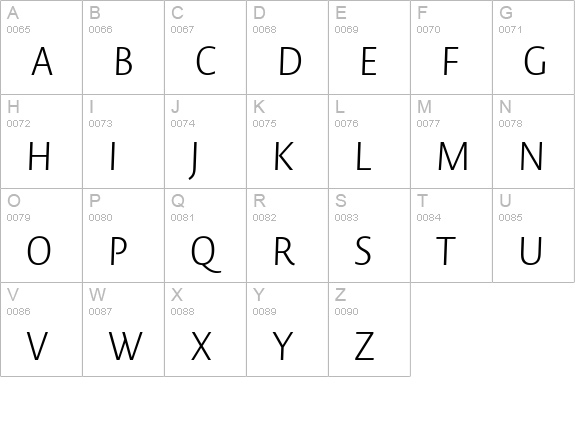
Novel Sans Pro ExtraLight It Font Details
Novel Sans Pro ExtraLight It is an airy, ultra-refined variant in the Novel typeface family \xE2\x80\x94 well suited to minimalist headlines and refined display use.
Novel Sans Pro ExtraLight It font is a sleek and modern typeface that exudes sophistication and elegance. With its delicate and refined strokes, this font offers a sense of grace and subtlety to any design project. The ExtraLight It style adds a touch of flair and uniqueness, making it perfect for adding a contemporary twist to your work. What sets Novel Sans Pro ExtraLight It font apart is its versatility and adaptability. Whether used for headings, body text, or even in logos and branding, this font effortlessly captures attention and conveys a sense of refinement. Its clean lines and stylish curves make it a favorite among designers looking for a font that is both professional and visually striking. And the best part? Novel Sans Pro ExtraLight It font is available for free download at FontsMarket.com, making it easily accessible to anyone looking to elevate their design projects with a touch of sophistication. So go ahead, unleash your creativity and explore the endless possibilities that this beautiful font has to offer.